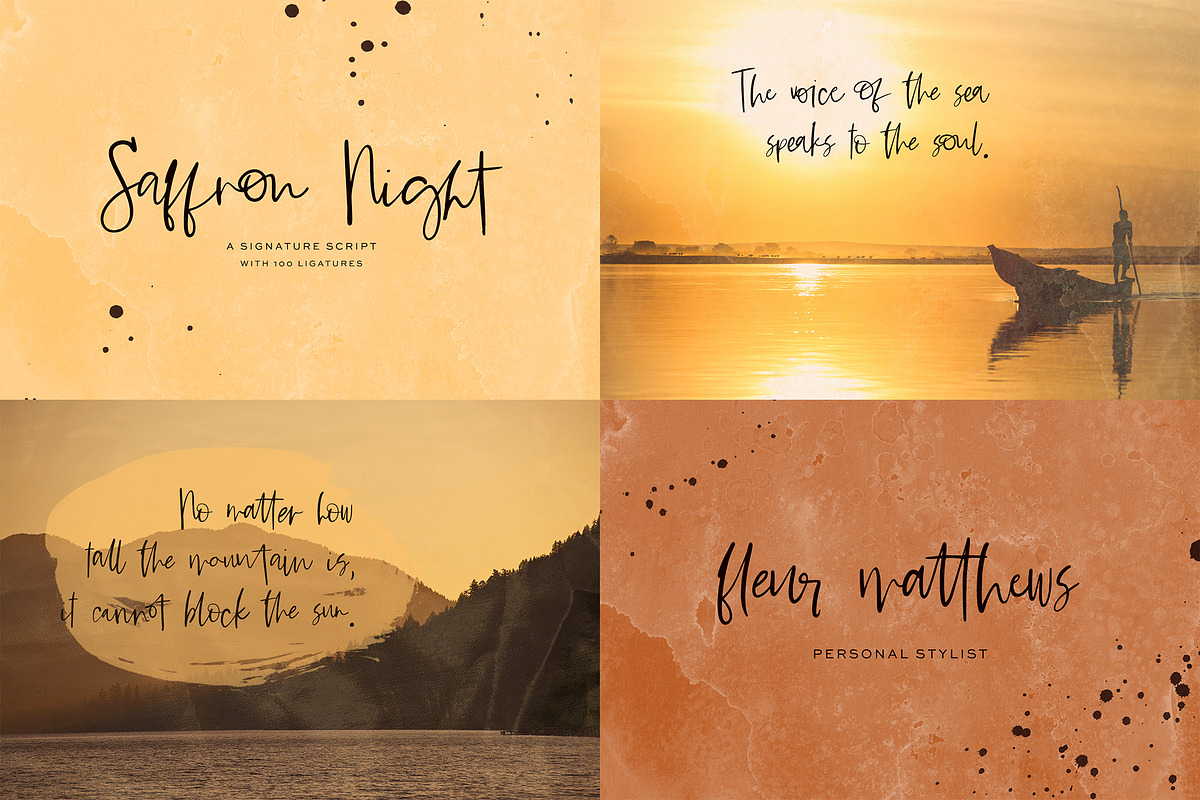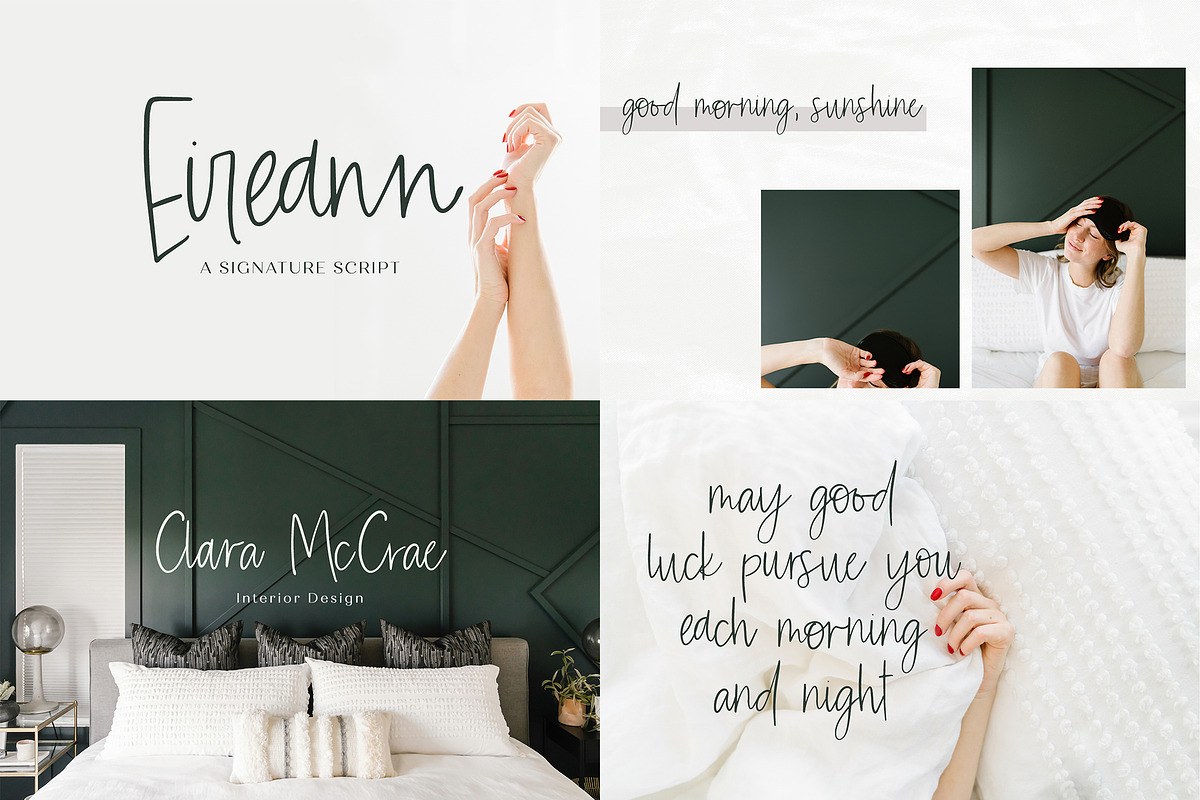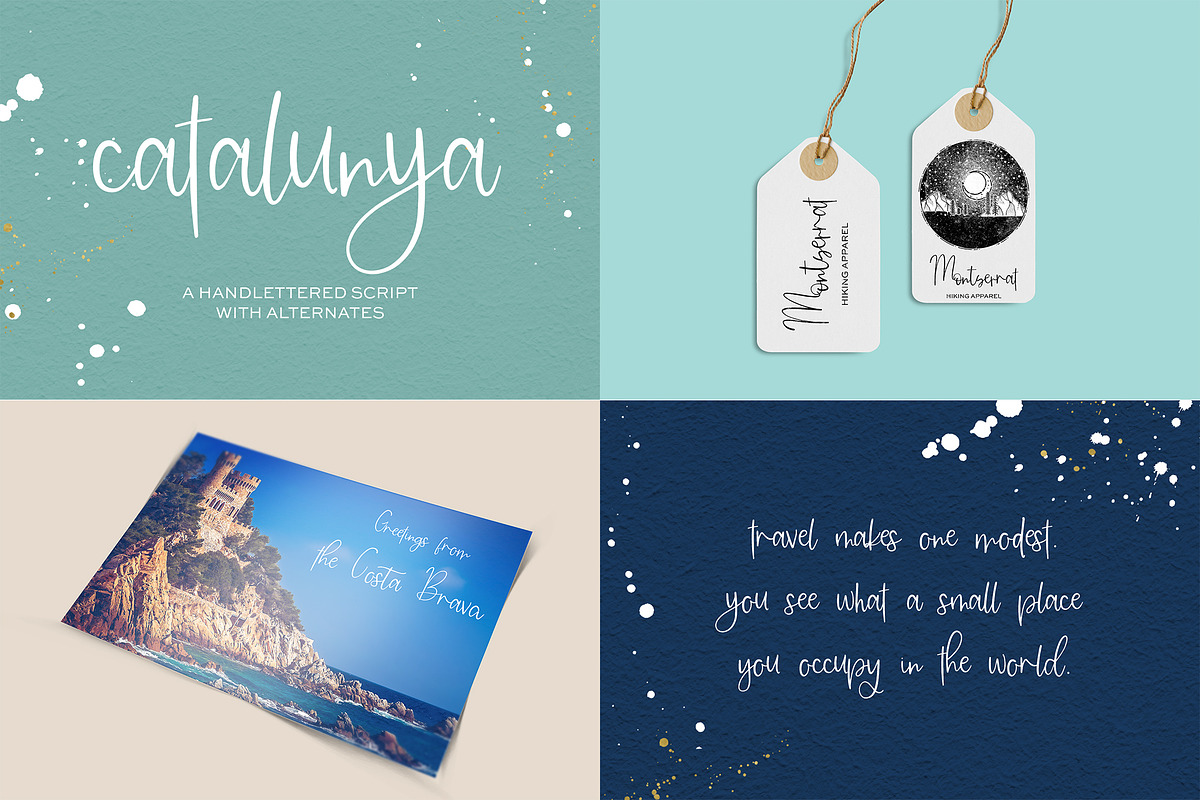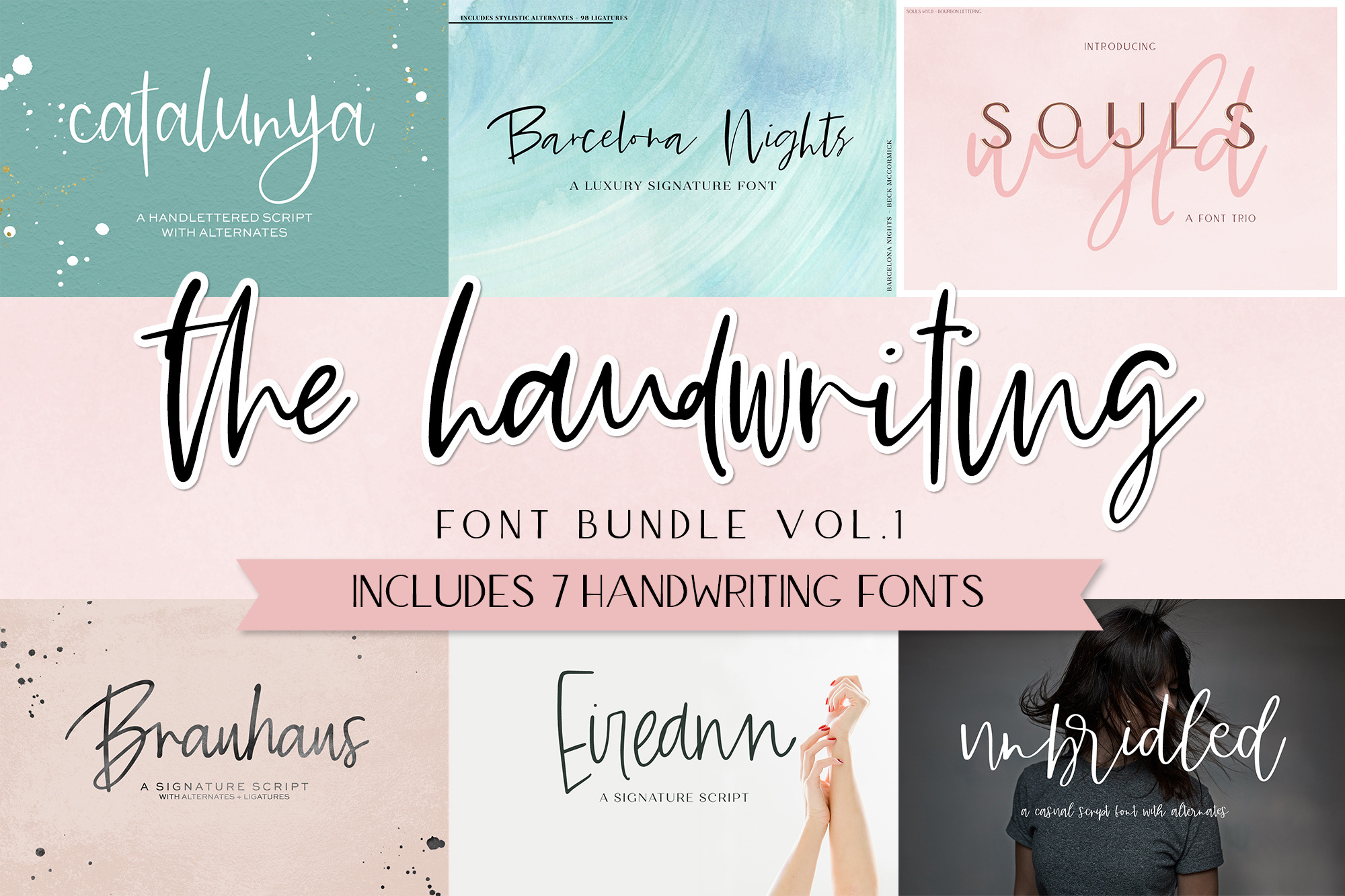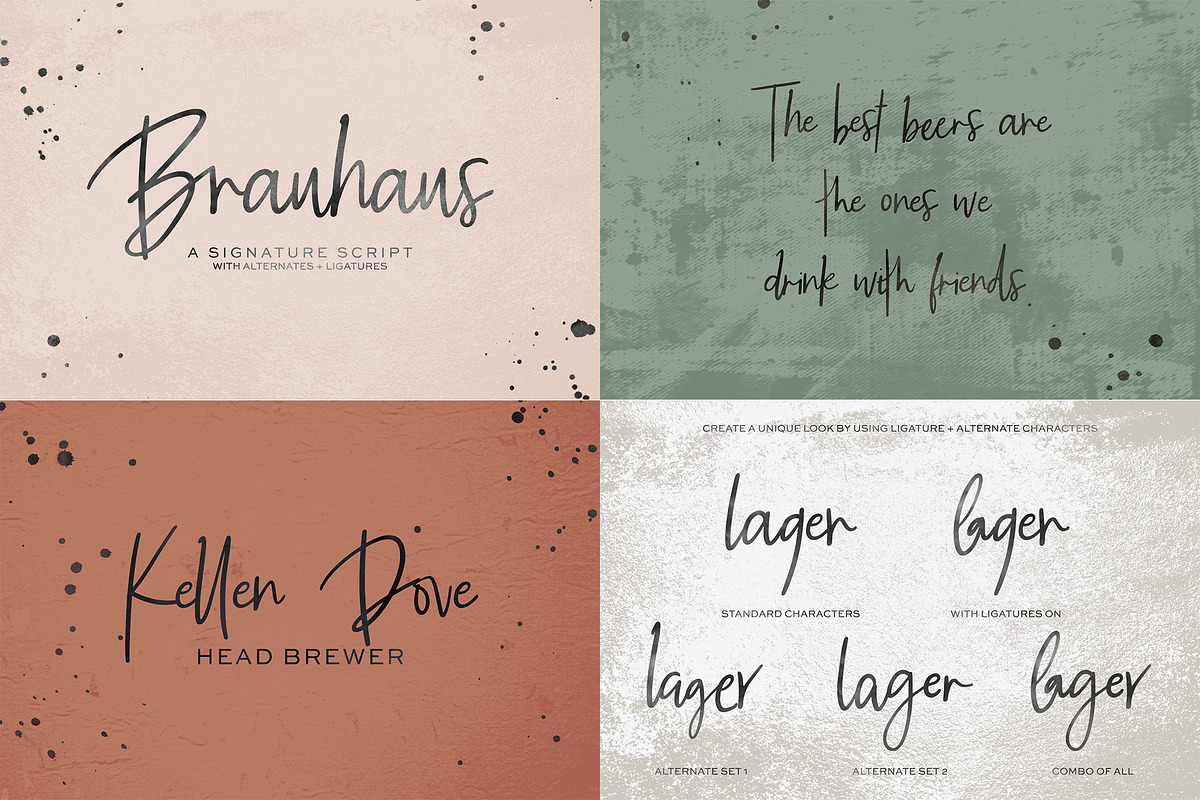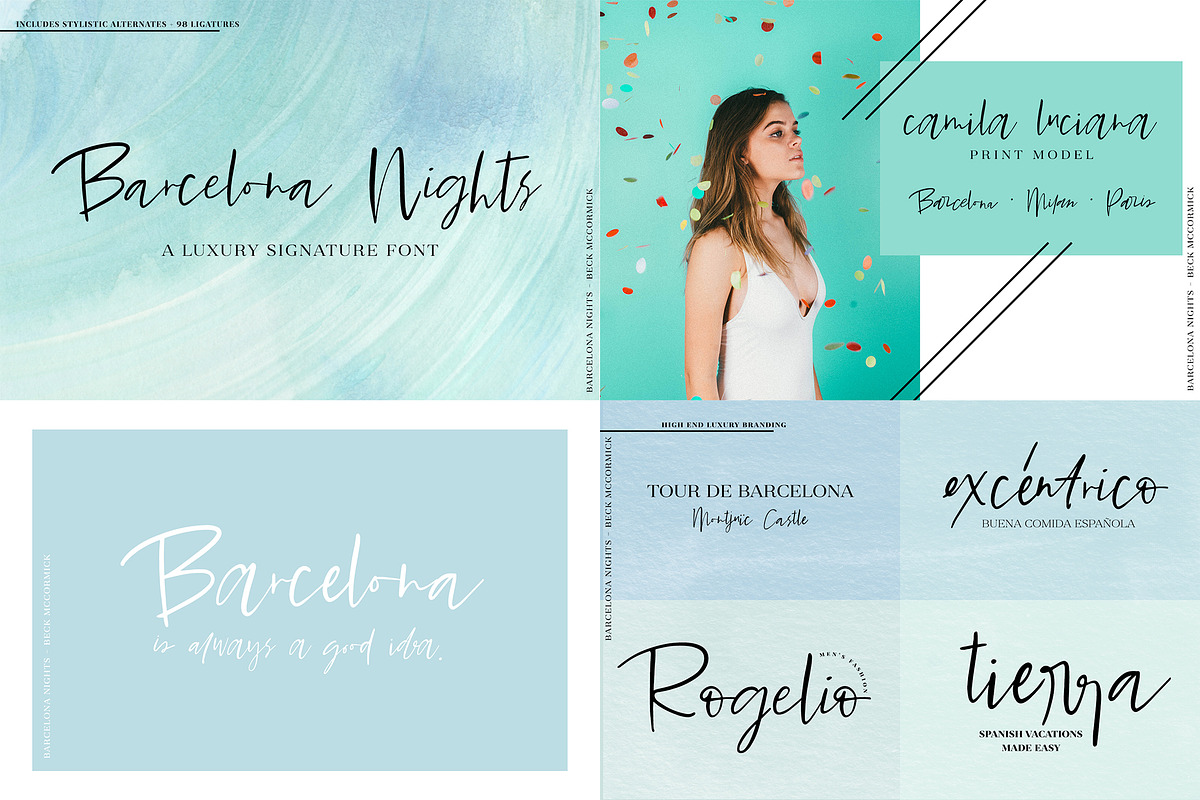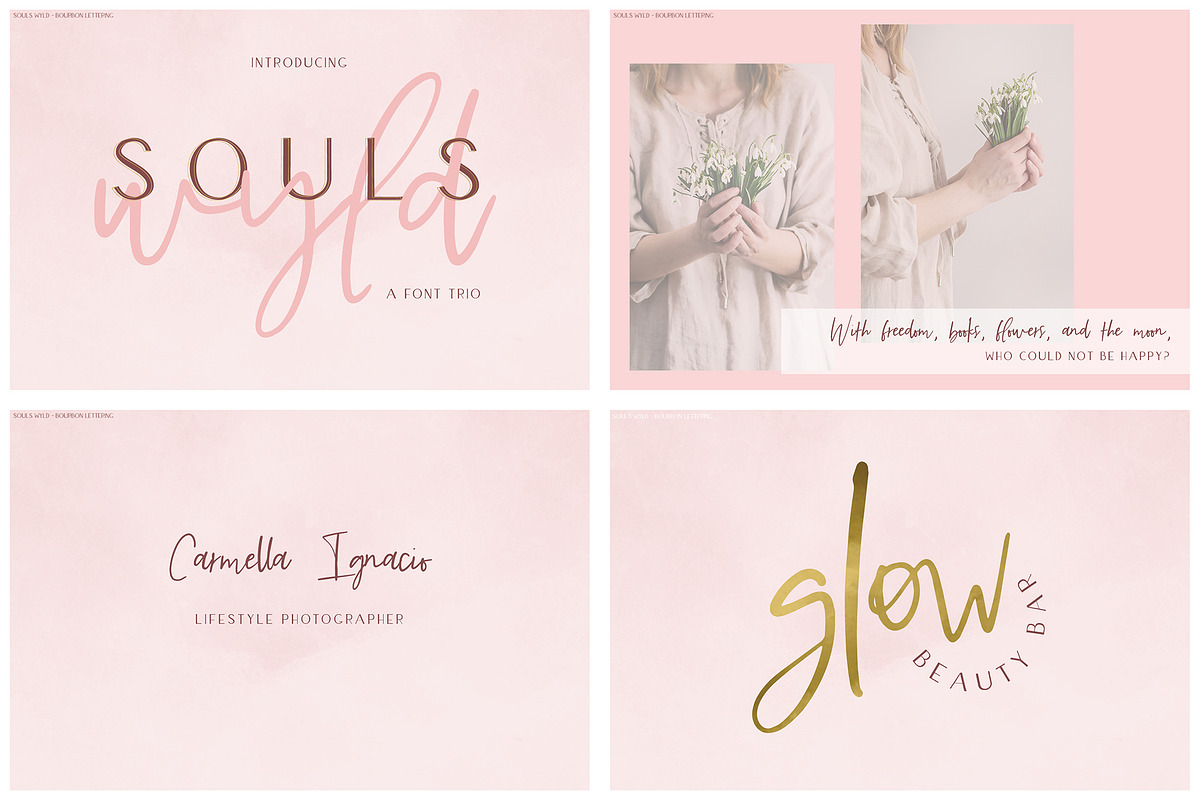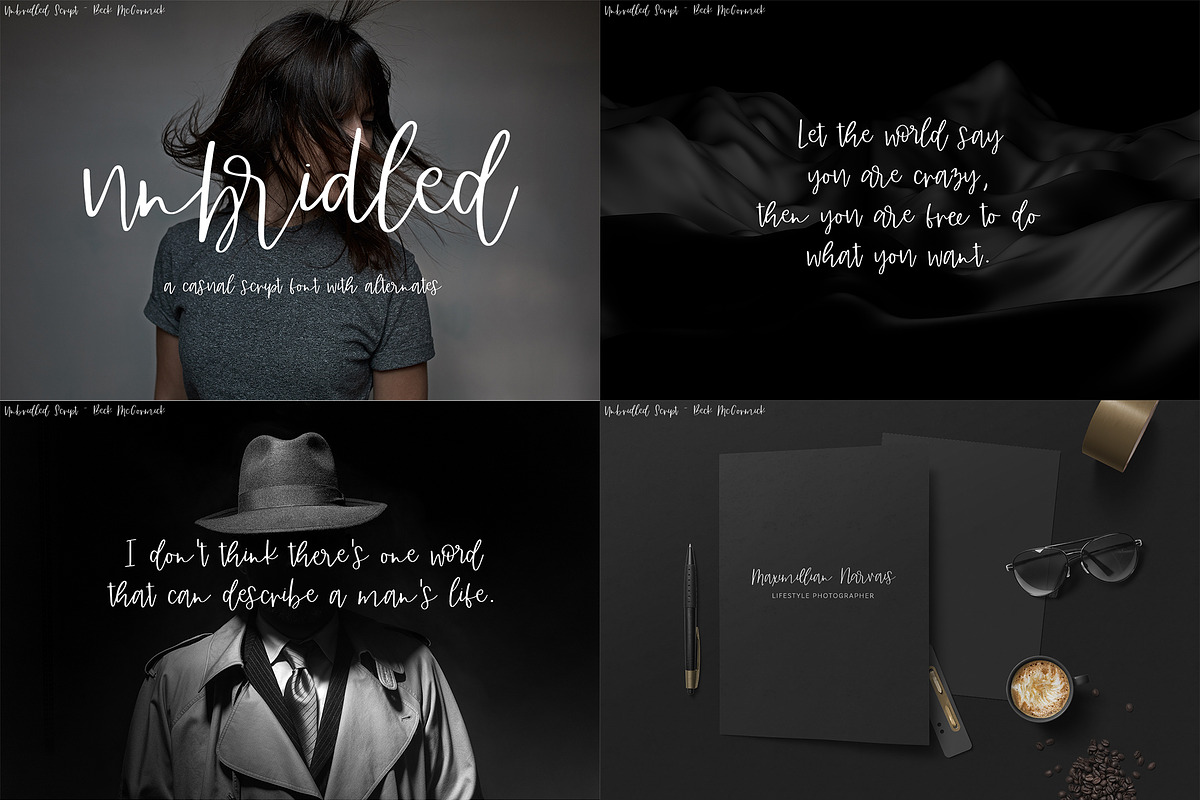
The Chic Handwriting Font Bundle
Introducing the Chic Handwriting Font Bundle!
The Handwriting Font Bundle is the new chic, stylish bundle for all of your handwritten font needs! This bundle includes seven top sellers that are modern, trendy, and contemporary. The best part? Each font has so many alternates + ligatures that customization is a total breeze - you can truly make your project look handwritten effortlessly! Bonus: Souls Wyld comes with two sans fonts that pair perfectly with any of the fonts included in this bundle!
This bundle includes:
- Souls Wyld Trio (1 script, 2 sans fonts)
- Saffron Night Script
- Eireann Signature Script
- Brauhaus Script
- Barcelona Nights Signature Script
- Catalunya Script
- and Unbridled Script
This bundle is curated for designers that work with a modern, chic aesthetic and need an arsenal of signature-style fonts to select from. Consider using the Handwriting Font Bundle for logos + branding, high end luxury products, projects in the fashion industry, & more!